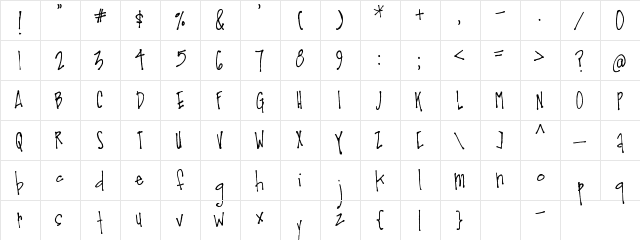
AMC_Chatty Regular Font Preview
AMC_Chatty Regular
Design Context for AMC_Chatty Typeface
AMC_Chatty is a composed and adaptable typeface that performs quietly and consistently across a wide range of design contexts.